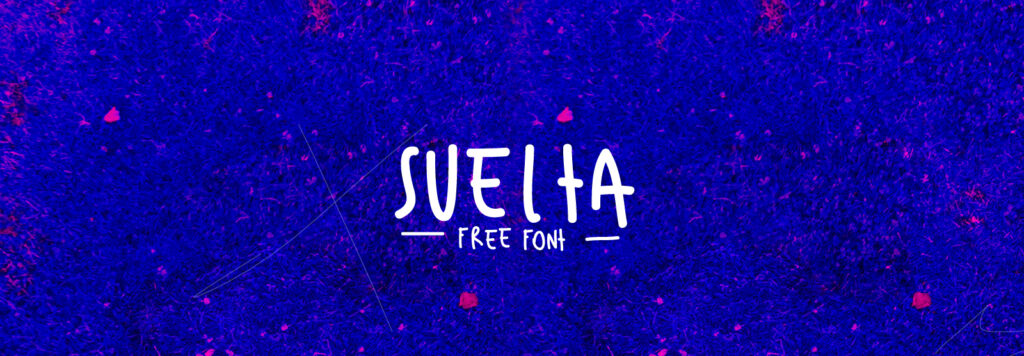
It was an ordinary day of work, we had lunch and as was our custom, we went to the park that is next to the agency. We were literally lying on the grass, resting, with something to “recreate” the mind and think about what personal project we could do. Suddenly, a stray dog comes to where we were, perhaps tempted by our comfort and in the same position you can see in the photo, he lay down to sleep next to us. When we saw him, we laughed, we took pictures and said “there it is, let’s make a typography to remember this moment” and so was born SUELTA, a comfortable, psychoactive and relaxed typography like the nice dog in the photo.